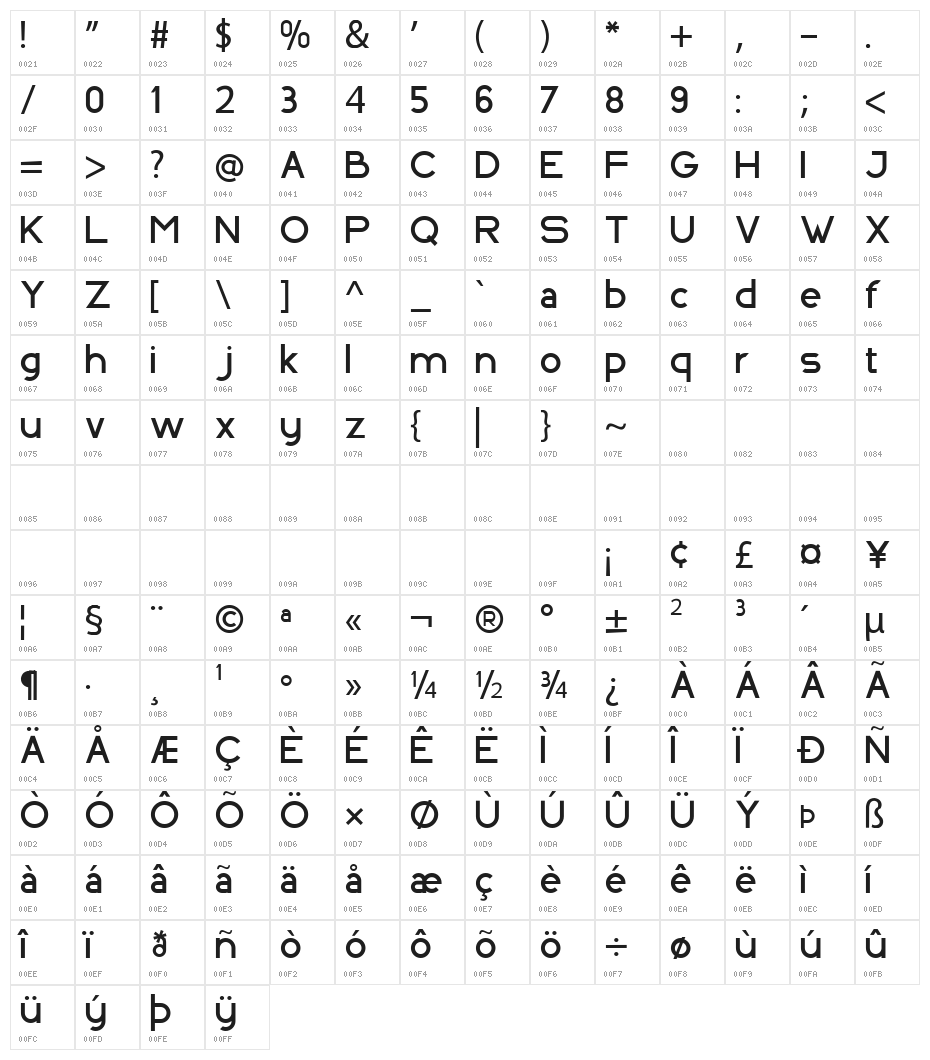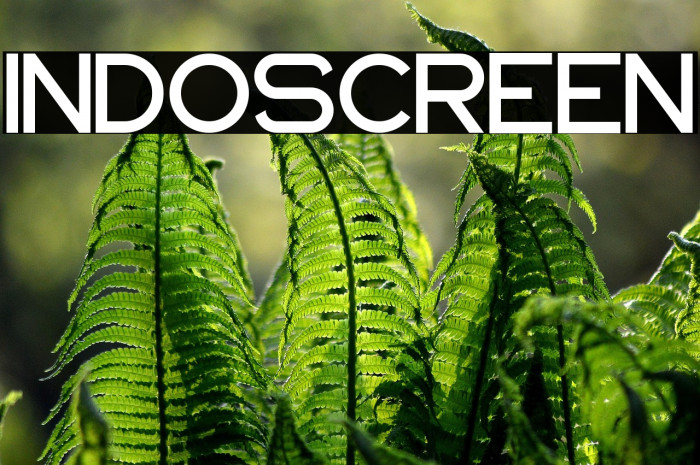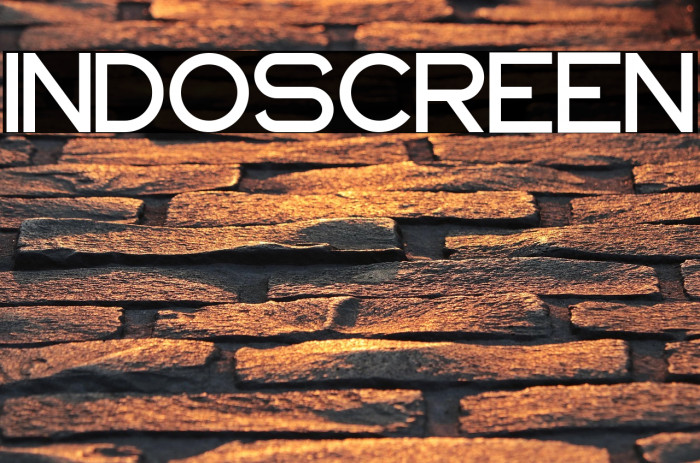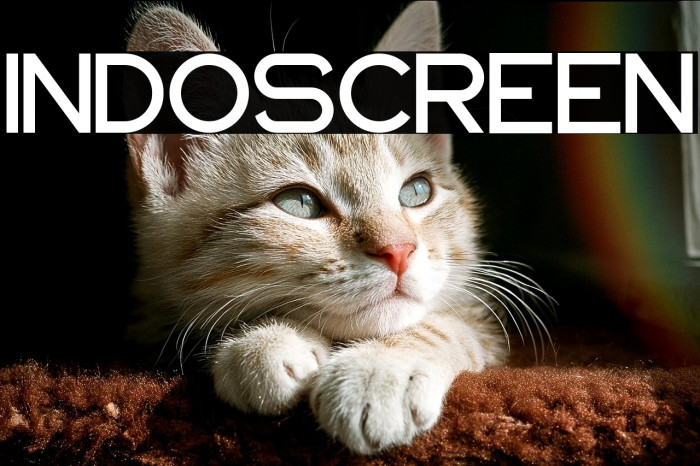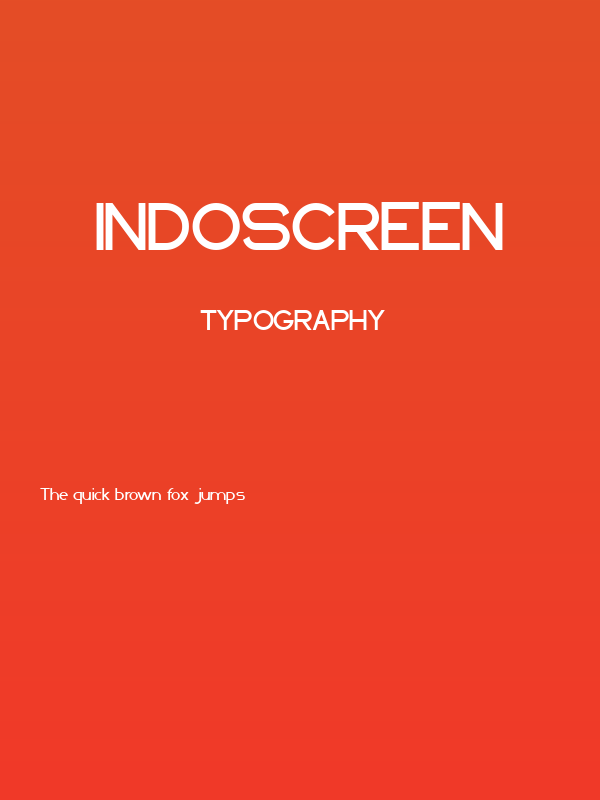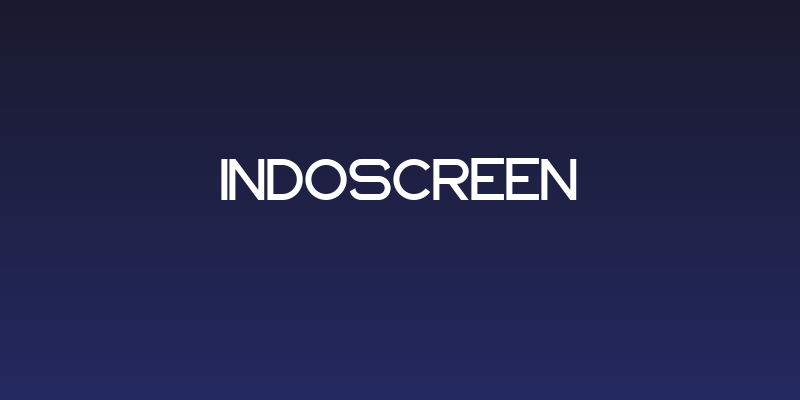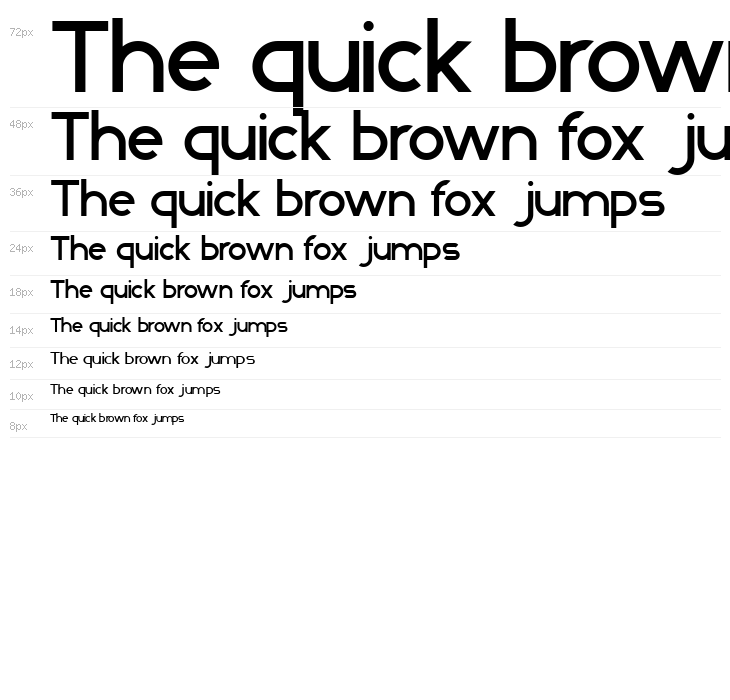
INDOSCREEN Font
INDOSCREEN Description
This typeface presents a clean and modern aesthetic, characterized by its geometric shapes and uniform stroke widths. The uppercase letters are bold and impactful, with a slight curvature that adds a touch of softness to the overall design. The lowercase letters maintain a consistent style, offering a harmonious blend of curves and straight lines. The numerals are clear and legible, making them suitable for various applications. The special characters are well-integrated, maintaining the font's cohesive appearance. Overall, this typeface is versatile and suitable for a wide range of design projects.
Overall StyleModern
Use CaseHeadlines, Logos, Digital Interfaces
Proposed ProjectsIdeal for branding, advertising, digital interfaces, and editorial design.